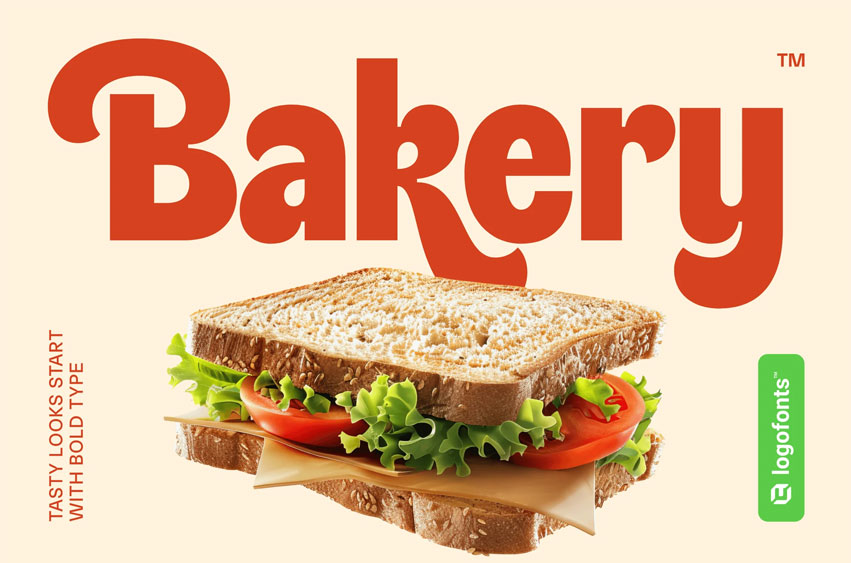
Bakery Font
Bakery Font is a charming modern display font that blends bold personality with elegant vintage-inspired curves. Designed for elegance and crafted for timeless branding, this font is perfect for food logos, bakery packaging, cafe branding, restaurant menus, sandwich shops, coffee labels, and creative culinary campaigns. Its smooth and playful letterforms create a warm, inviting atmosphere while maintaining a clean and professional visual identity that instantly captures attention.
Built for brands that want to stand out with flavor and style, Bakery works beautifully across posters, packaging, menu designs, social media promotions, and modern food branding systems. The bold typography and soft geometric flow deliver a memorable and approachable aesthetic suitable for both minimal and expressive layouts. Whether for bakery brands, cooking content, or lifestyle-inspired visuals, Bakery transforms every design into a delicious and timeless statement full of character.
Designed for elegance, crafted for timeless branding.